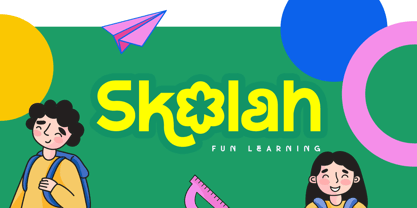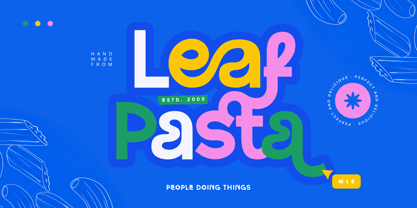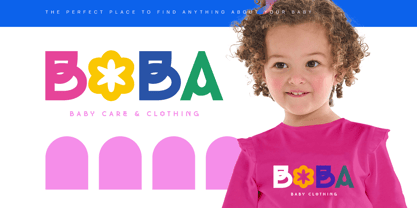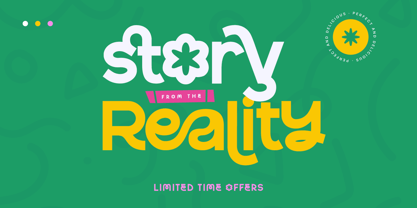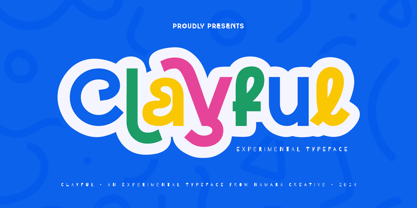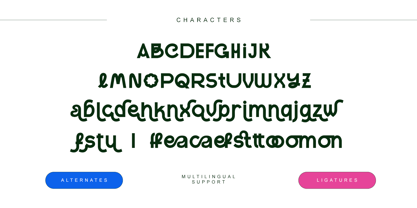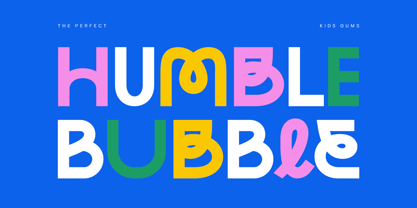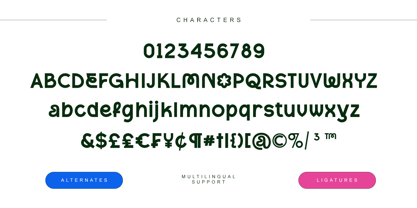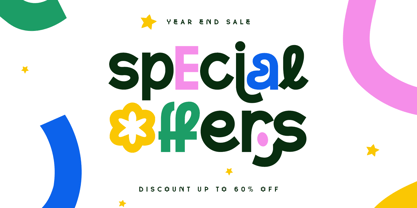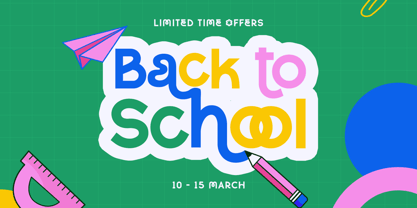
The Clayful Font Family was designed by Toni Setiawan and published by Namara Creative Studio. Clayful contains 1 styles. More about this family
Meet Clayful, the modern typeface that brings a burst of creativity to your designs. With its fresh, playful vibe, Clayful is the perfect way to stand out and make a bold statement.
Why You’ll Love Clayful:
• One-of-a-Kind Design: Crafted with a unique, clay-inspired look that feels fresh and organic.
• Super Versatile: Whether you’re working on headlines, logos, posters, or social media, Clayful adds personality and charm to any project.
• Customization at Your Fingertips: With handy OpenType features, including ligatures and alternates, you can easily create a custom look that’s all your own.
Clayful isn’t just a font, it’s a design game-changer. Add some fun and flair to your work with this eye-catching typeface. Whether you’re a designer, brand creator, or typography enthusiast, Clayful will take your designs to the next level.